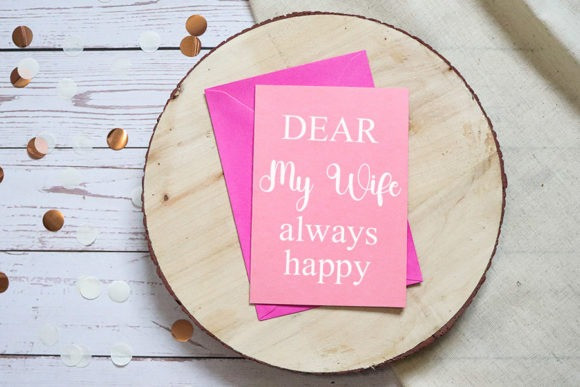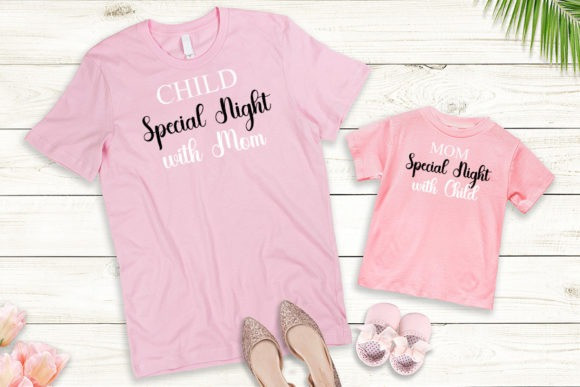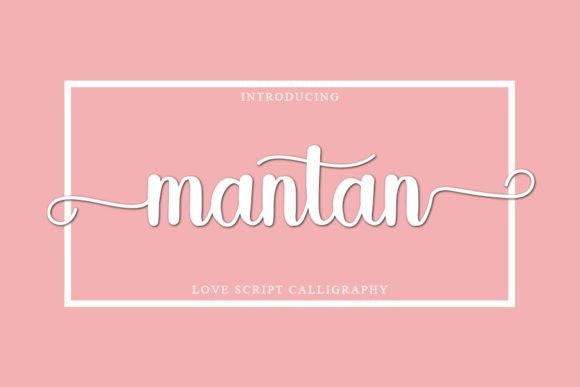
Mantan Font
Mantan Font is an elegant script font with a contemporary atmosphere and impeccable form, inspired by timeless classic calligraphy. This font is PUA encoded which means you can access all of the glyphs and swashes with ease!